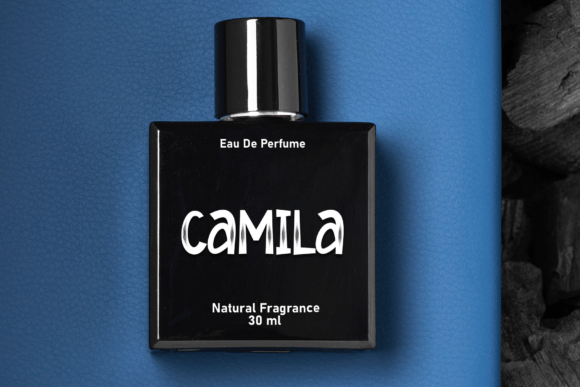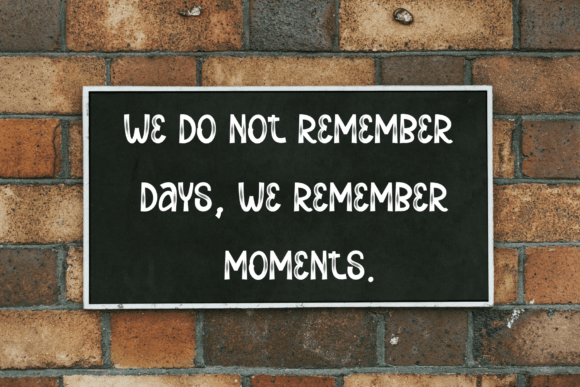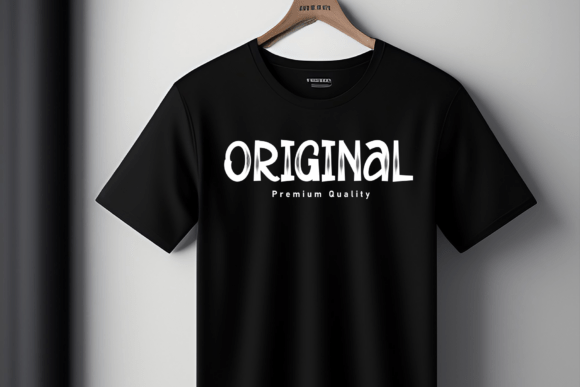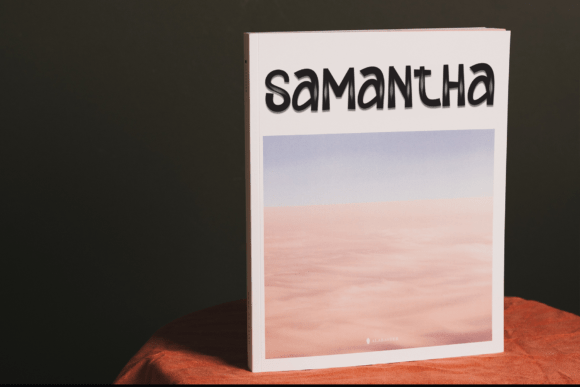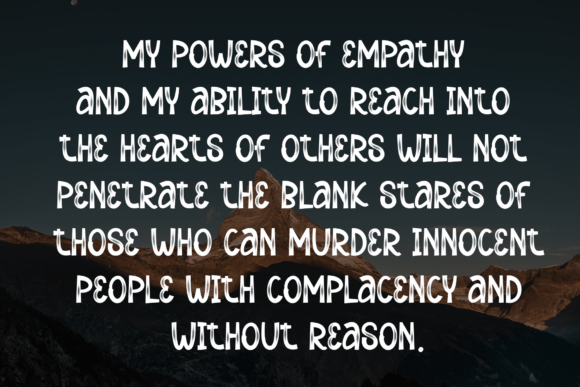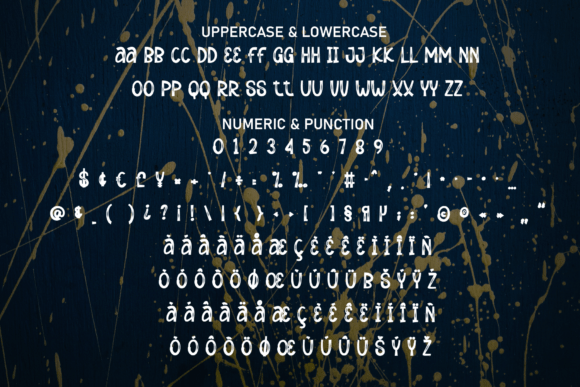
Introducing Brush Vintage Font: Add a Touch of Whimsy to Your Designs
Are you looking for a font that can add a dash of fun and personality to your creative projects? Look no further than Brush Vintage Font, a charming and whimsical handwritten display font that’s perfect for designers and crafters alike. This delightful font is sure to bring a smile to your face and a touch of elegance to your work.
A Font that’s Full of Character
Brush Vintage Font is a one-of-a-kind typeface that’s full of character and personality. Its unique, handwritten style is reminiscent of a bygone era, with a playful and carefree vibe that’s sure to capture the hearts of your audience. Whether you’re crafting a heartfelt wedding invitation, a playful card, or a bold poster, this font is the perfect choice to add a touch of whimsy and fun to your design.
Brush Vintage Font is a versatile typeface that can be used for a wide range of projects, including:
- Playful cards and greetings
- Social media graphics and quotes
- Branding and packaging
Wherever you use it, Brush Vintage Font is sure to add a touch of elegance and sophistication to your design.
What Sets Brush Vintage Font Apart
So, what makes Brush Vintage Font so special? Here are just a few things that set it apart:
- Unique and whimsical style: Brush Vintage Font has a one-of-a-kind style that’s sure to stand out from the crowd.
- Handwritten with love: This font is carefully crafted to mimic the look and feel of handwritten text, giving it a warm and personal touch.
- Perfect for display text: Brush Vintage Font is designed specifically for display text, making it perfect for headlines, titles, and other prominent text elements.
- Easy to read: Despite its playful style, Brush Vintage Font is easy to read and understand, making it perfect for use in a variety of contexts.
How to Use Brush Vintage Font
Using Brush Vintage Font is easy! Here are a few tips to get you started:
- Pair it with a simple font: Brush Vintage Font works best when paired with a simple, sans-serif font. This will help to create contrast and make your design stand out.
- Use it for display text: Brush Vintage Font is designed specifically for display text, so use it for headlines, titles, and other prominent text elements.
- Experiment with colors: Brush Vintage Font looks great in a variety of colors, so don’t be afraid to experiment and find the perfect hue for your design.
In conclusion, Brush Vintage Font is a charming and whimsical handwritten display font that’s perfect for designers and crafters alike. Its unique style, versatility, and ease of use make it a must-have for anyone looking to add a touch of fun and personality to their creative projects. So why wait? Download Brush Vintage Font today and start adding a touch of whimsy to your designs!
- Handwritten display font
- Unique and whimsical style
- Perfect for wedding invitations, playful cards, and more
Whether you’re a designer, crafter, or DIY enthusiast, Brush Vintage Font is the perfect choice for anyone looking to add a touch of personality and whimsy to their creative projects. So why wait? Download Brush Vintage Font today and start creating!